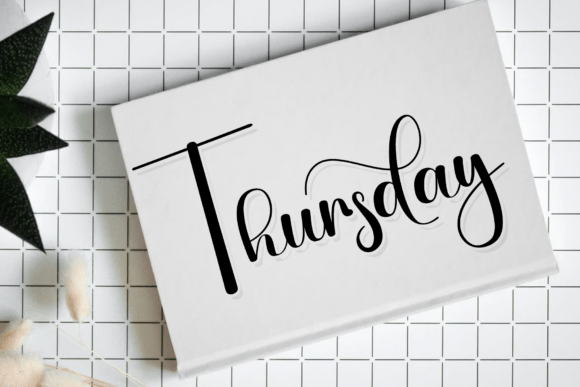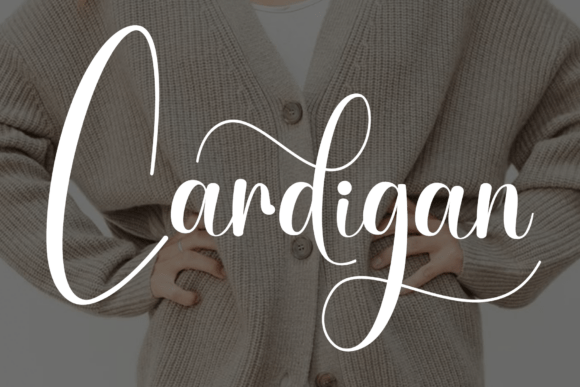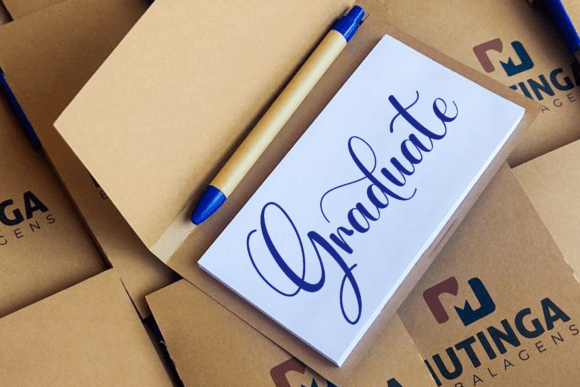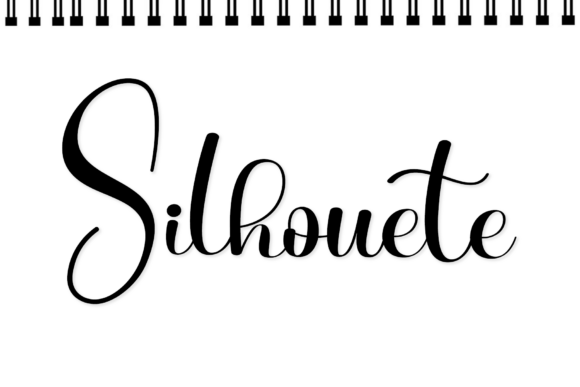
The Magic of Handwritten Fonts: Unveiling the Dreaming Font
Have you ever found yourself stuck in a creative rut, searching for that perfect font to elevate your design? It’s a moment we’ve all been there – staring at a blank page, desperately seeking inspiration. Suddenly, a spark of creativity strikes, and you envision the perfect handwritten font. For designers, this moment is a game-changer, and that’s where the Dreaming Font comes in.
With its timeless and lovely design, the Dreaming Font is the perfect choice for creating eye-catching logos, branding, and quotes. Every letter has a unique and beautiful touch, making your design come alive. Whether you’re a seasoned designer or just starting out, the Dreaming Font is an invaluable tool that will help you bring your creative vision to life.
- Font Family: Dreaming Font offers a unique and elegant script font with multiple styles, including Regular, Italic, Bold, and Bold Italic.
- Unique Characteristics: Dreaming Font features a unique, handwritten style with subtle flourishes and connecting strokes, giving it a personal and creative touch.
Dreaming Font Review
I recently had the chance to work with the “Dreaming Font” and I must say, it’s an interesting choice. ✨ One thing that works well is its unique, whimsical feel. It’s perfect for adding a touch of magic to your designs, especially those that require a more mystical or dreamlike quality. The font’s irregularities and flourishes make it stand out from more traditional fonts.
Another positive aspect is its versatility. ✨ The Dreaming Font comes in a range of weights and styles, making it suitable for various design applications, from headings to body text. It’s also highly legible, even at smaller font sizes, which is a plus.
- ⚠️ Not ideal for formal or corporate designs: The Dreaming Font’s playful nature may not be suitable for formal or corporate designs, where a more traditional or professional look is required.
Overall, the Dreaming Font is a great choice for designers who want to add a touch of whimsy to their work. While it may have some limitations, its unique feel and versatility make it a valuable addition to any design toolkit.
Use the Dreaming Font to create a whimsical and dreamy atmosphere in your designs.
Pair the font with complementary colors and imagery to enhance its effectiveness.
The Dreaming Font is ideal for creating dreamy and ethereal designs, such as:
Children’s book illustrations
Marketing materials for creative industries